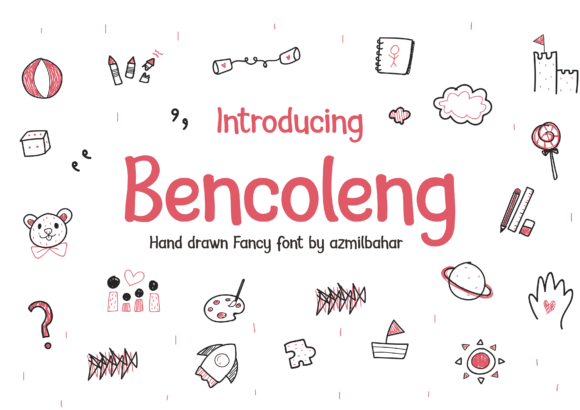
The Designer’s Delight: Bencoleng Font
I still remember the day I stumbled upon the perfect font for a whimsical children’s book project. I had been searching for what felt like an eternity, trying out font after font, but nothing seemed quite right. That was until I discovered Bencoleng Font – a cute and whimsical comic font that instantly captured the playful essence of my project. In this article, I’ll share my experience with Bencoleng Font, its unique features, and how to make the most of it in your design projects.
An Honest Review of Bencoleng Font
Bencoleng Font has quickly become a favorite in my design toolkit, and for good reason. Here are some of the things I love about it:
- ✨ Unique and playful character set that’s perfect for creative projects
- ✅ Easy to read and understand, even at smaller font sizes
- 💕 Adorable charm that adds a personal touch to any design
- 🎨 Versatile and can be used for a wide range of projects, from children’s books to social media graphics
While Bencoleng Font is a standout typeface, it’s not without its quirks. Here are a few things to keep in mind:
- 🤔 Some characters may not work well in all contexts, such as in very small font sizes or when used as a body font
- ⚠️ Limited language support, so it’s best used for English or similar languages
The Story Behind Bencoleng Font
Bencoleng Font was designed with the intention of creating a unique and playful typeface that would add a personal touch to any design project. The designer, inspired by the whimsy of childhood and the world of comics, crafted Bencoleng Font to be both fun and functional. With its adorable charm and versatile character set, it’s no wonder Bencoleng Font has become a favorite among designers and crafters.
| Font Name | Bencoleng Font |
| Author | Brothers Graphic |
| What is Bencoleng Font best used for? | Bencoleng Font is perfect for creative projects that require a playful and whimsical touch, such as children’s books, social media graphics, and craft designs. |
| Is Bencoleng Font suitable for body text? | While Bencoleng Font is easy to read, it’s best used as a display font or for short blocks of text. For longer documents, a more traditional font may be more suitable. |
| Does Bencoleng Font support non-English languages? | Bencoleng Font has limited language support, so it’s best used for English or similar languages. |